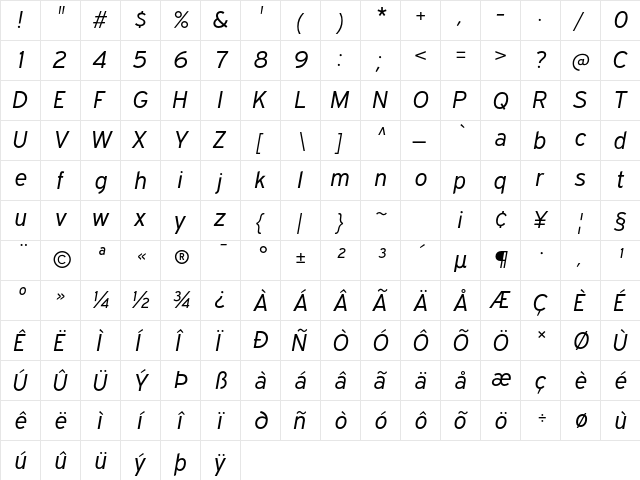
Expressway Bk Italic Font Preview
Expressway Bk Italic
Expressway Bk Italic Font Details
Design Context for Expressway Bk Typeface
Expressway Bk is a composed and adaptable typeface that performs quietly and consistently across a wide range of design contexts. The slanted form adds forward momentum and visual energy.
Pro Tip: Try Expressway Bk for annotation and caption copy alongside an upright companion — the contrast in angle creates a dynamic but ordered typographic system.